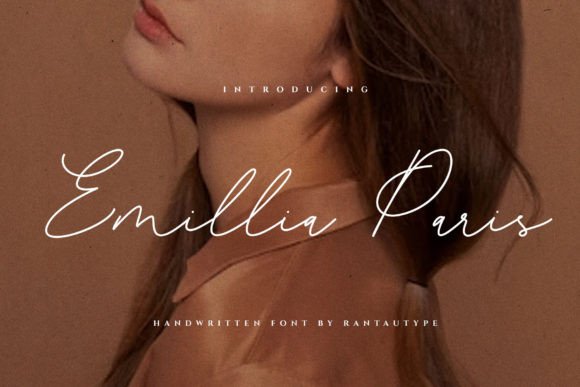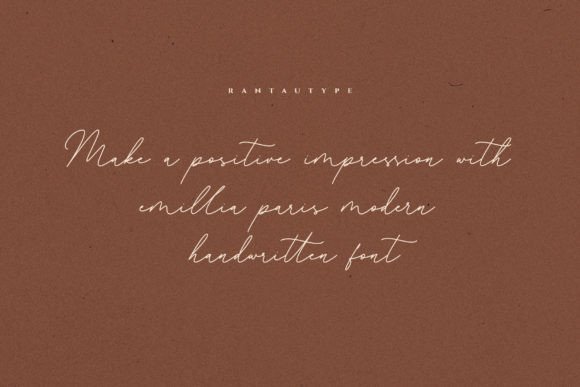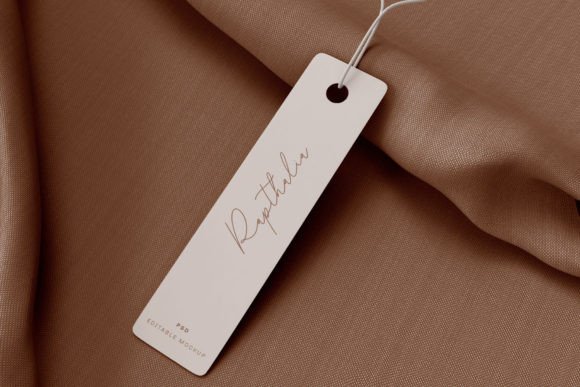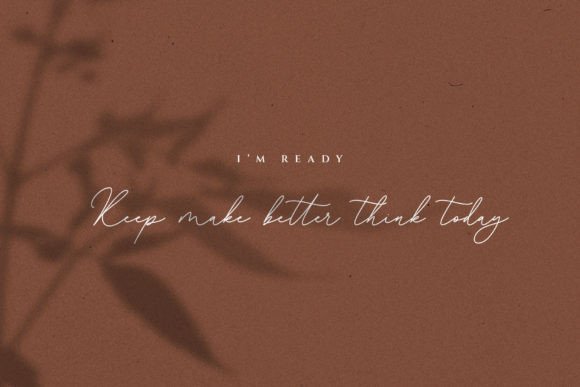
Emillia Paris Font
About the Emillia Paris Font
We are excited to introduce Emillia Paris Font, a must-have typeface for any serious designer. Emillia Paris is an exquisite handwritten font, masterfully designed to become a true favorite. It maintains its classy calligraphic influences while feeling
contemporary and fresh. Fall in love with it and bring your projects to the highest levels!
Emillia Paris excels in applications requiring a touch of elegant hand-lettered sophistication. It’s ideal for short headlines, logos, branding elements, invitations, and short-form quotes where its calligraphic charm shines. Avoid using it for large blocks of body text or UI elements; its delicate nature is less legible at smaller sizes and in continuous paragraphs.
Its inherent personality is sophisticated yet approachable. Consider pairing it with a clean sans-serif like Montserrat for a modern contrast, or a classic serif like Garamond for a more timeless feel. For a playful touch, a simple geometric sans-serif such as Futura could also complement its curves.
The font’s elegant yet friendly feel makes it perfect for brands focusing on fashion, beauty, lifestyle, or high-end products. The handwritten quality adds a personal touch without compromising on professionalism.
Emillia Paris Font Usage Examples
Emillia Paris Font Example